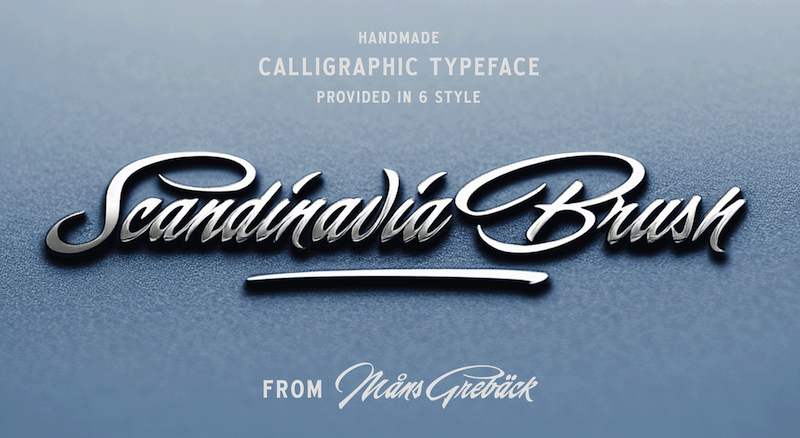
Preview and download Scandinavia Brush Font. Created by Måns Grebäck in Script Calligraphy styles with Free for personal use license.
Font name: | Scandinavia Brush |
NOTE: This font is for PERSONAL USE ONLY! To purchase a commercial license, visit: http://mn.sg/scandinavia-brush Scandinavia Brush is a wild calligraphy font by Mans Greback, capturing the beautiful and rugged essence of Nordic nature. Use underscores _ anywhere in a word to make an underline swash. Example: Nord___ic Bru_sh For questions, please visit www.mansgreback.com/faq |